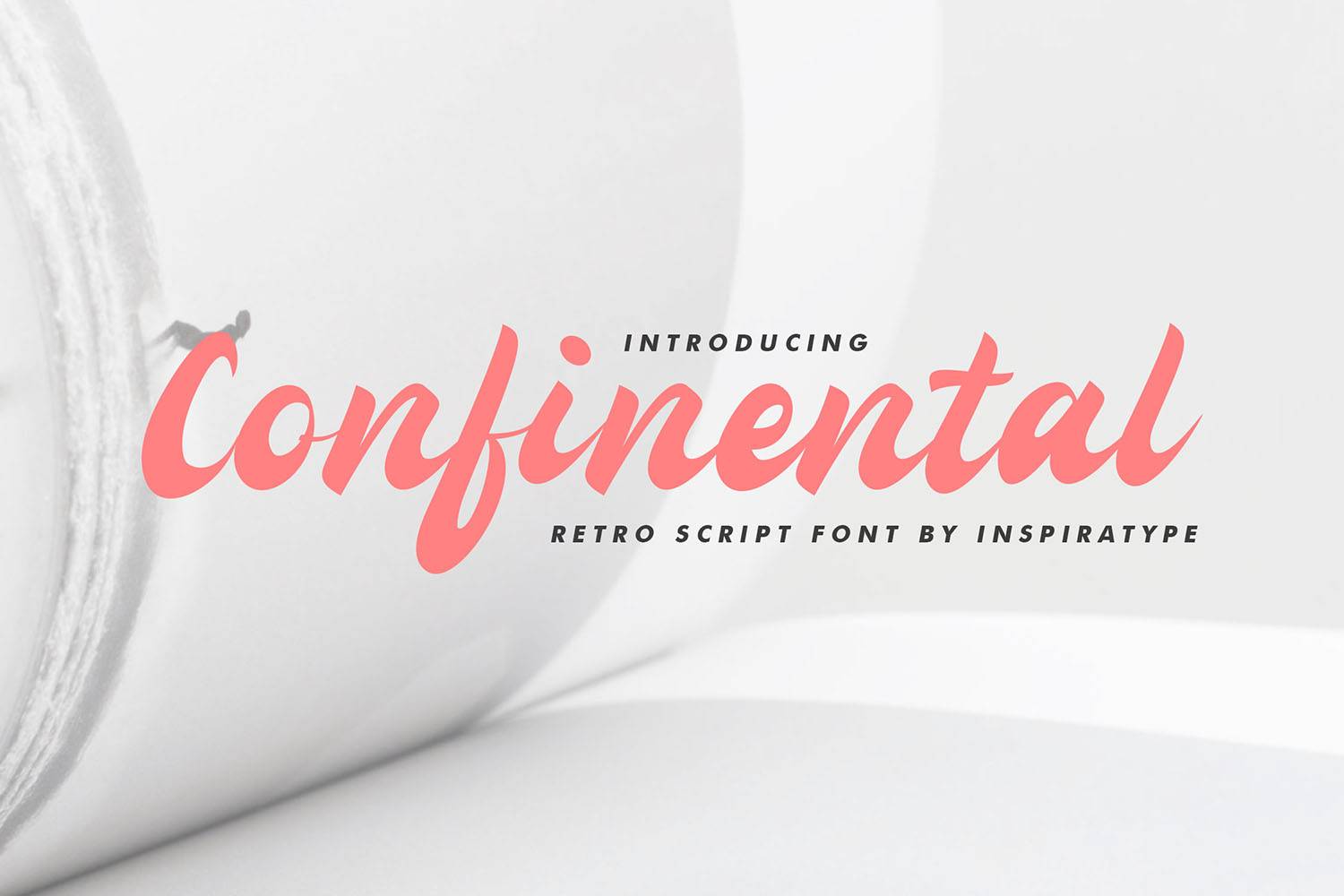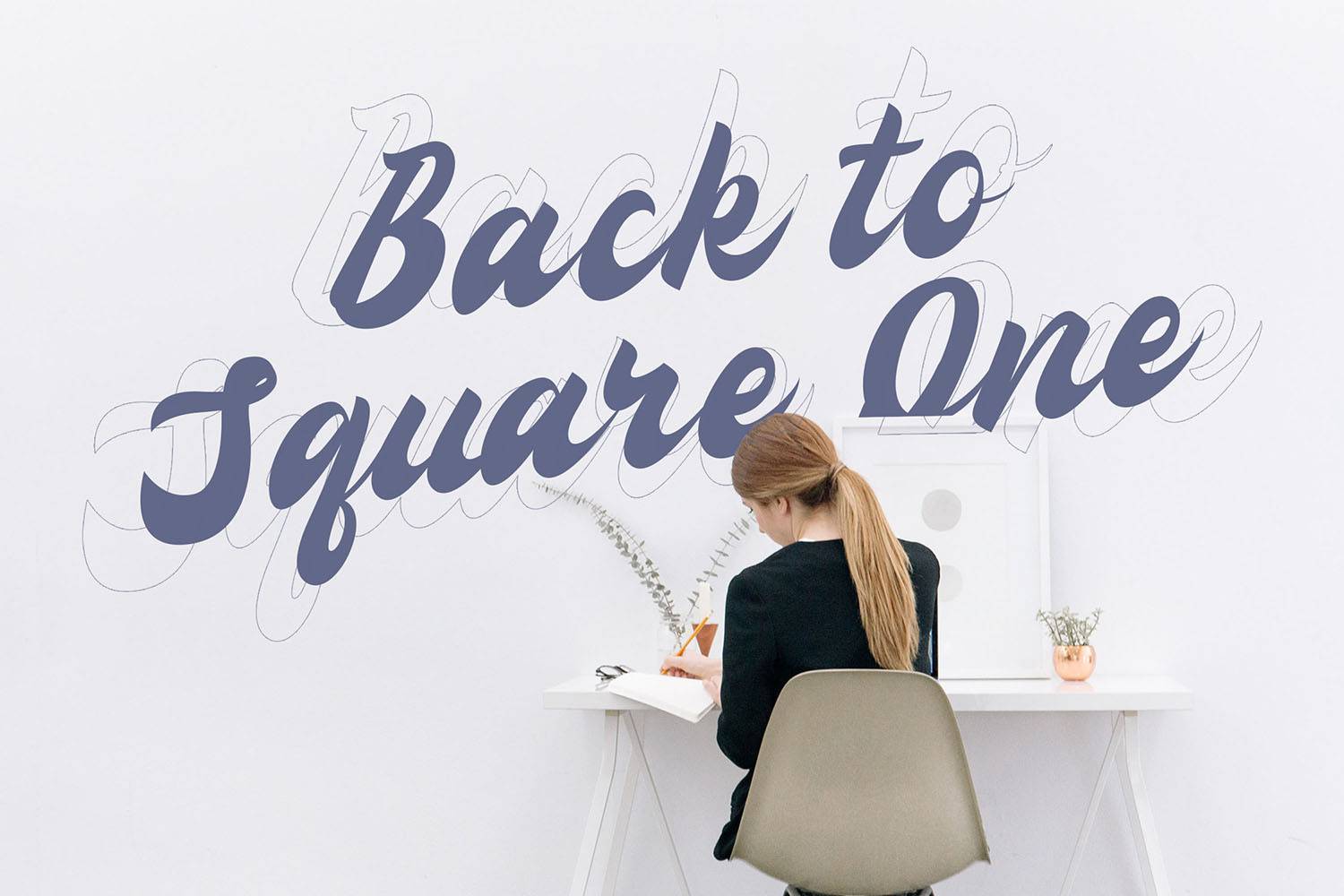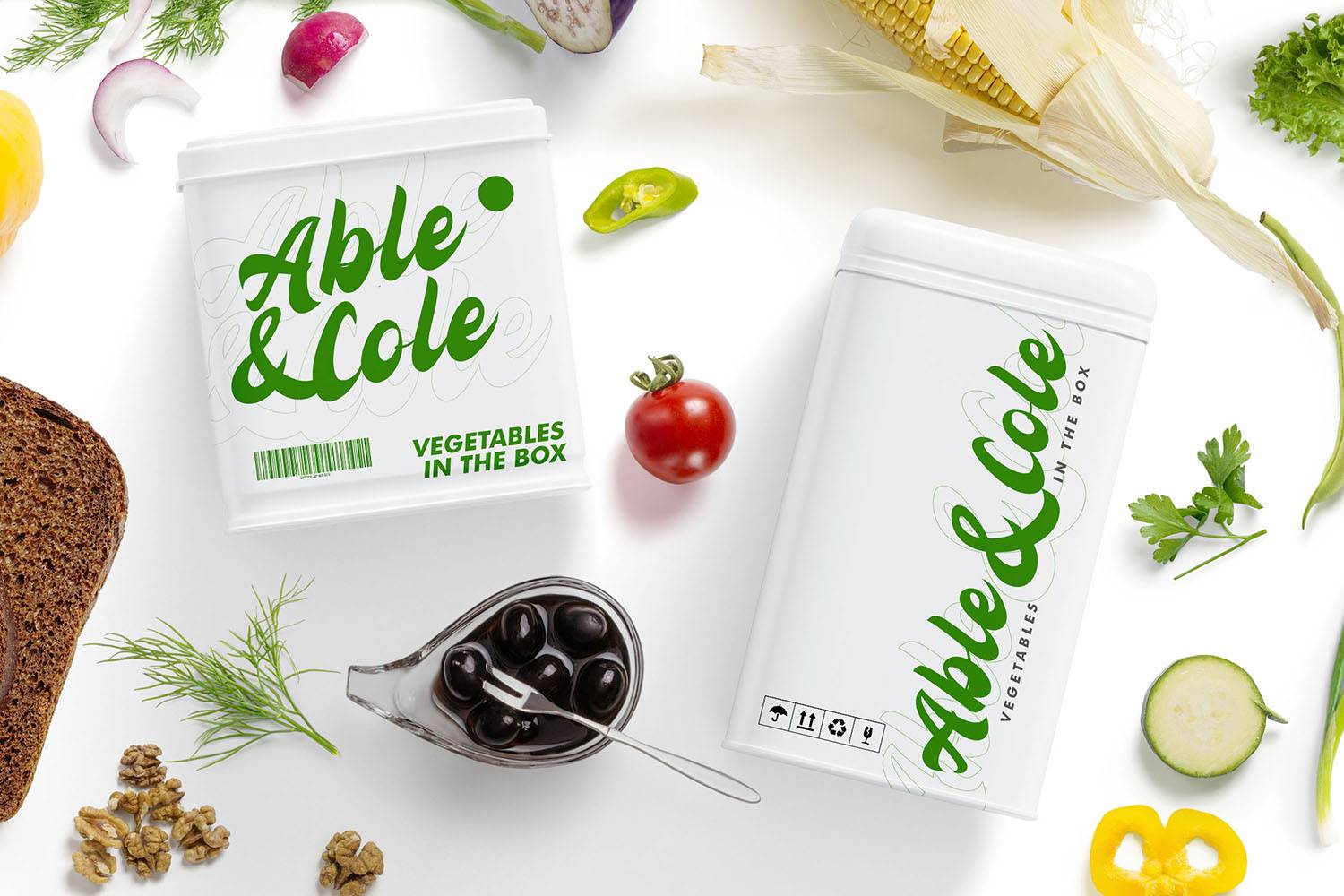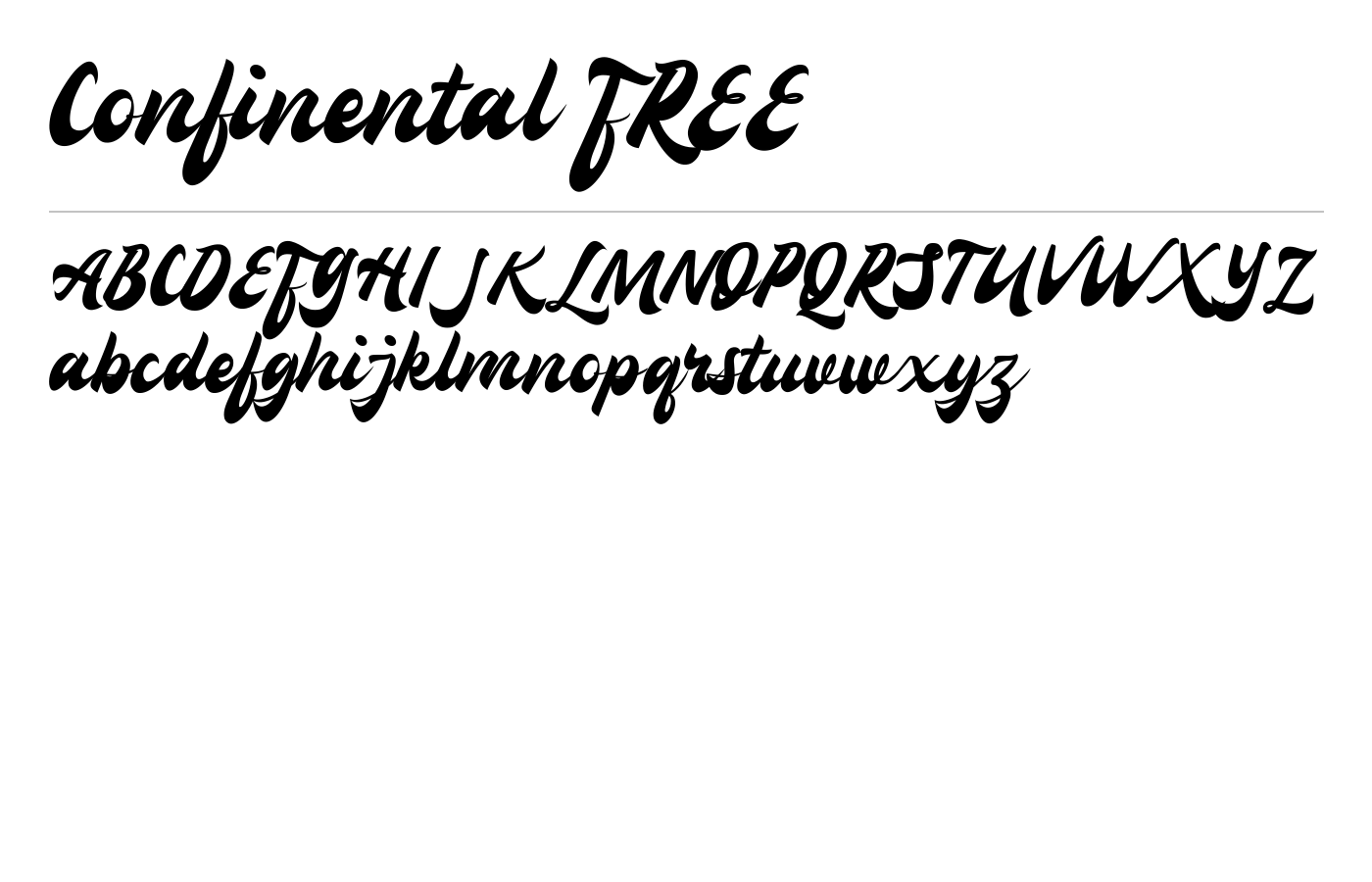
Confinental is a bold, cursive script font with a strong, playful personality and smooth, rounded letterforms that combine elegance with casual charm. Its high contrast strokes and connected characters give it a lively and energetic feel, making it ideal for creative branding, eye-catching headlines, and stylish packaging where a friendly yet sophisticated touch is desired.
Confinental Font
About Confinental Font
| Font family | Confinental Font |
| Designer | Inspiratype |